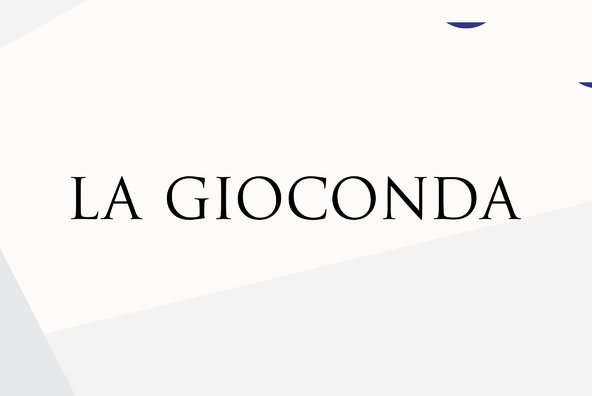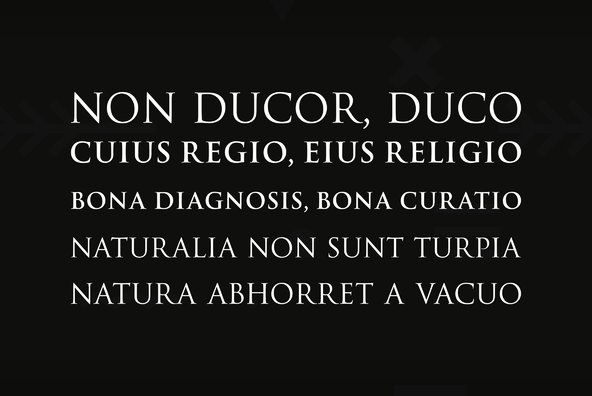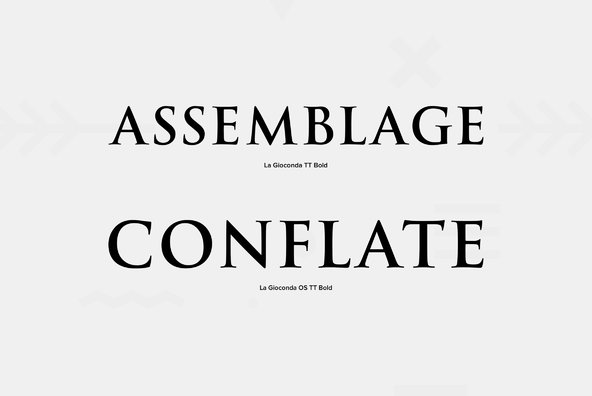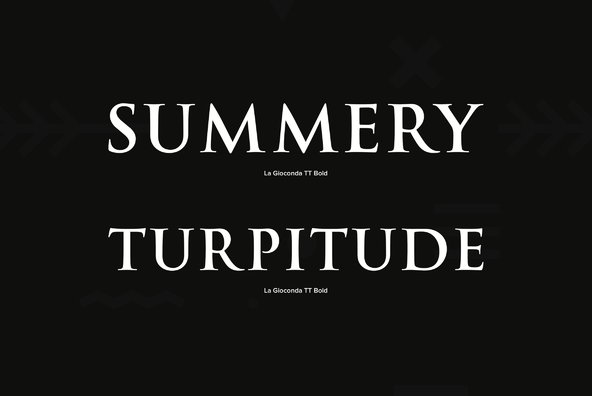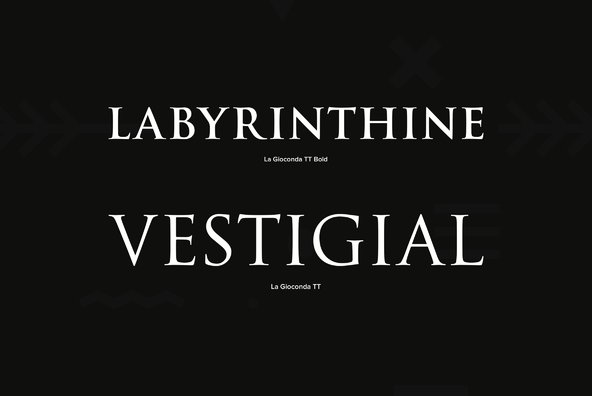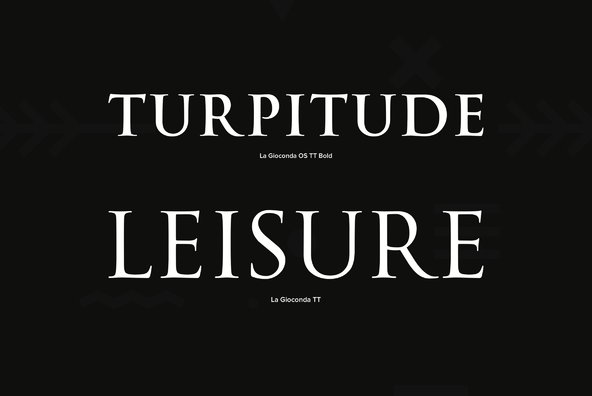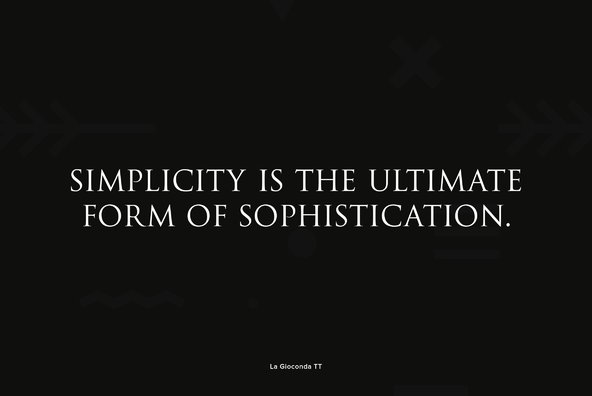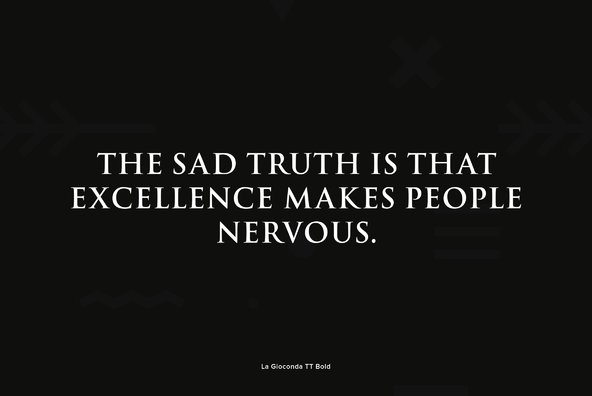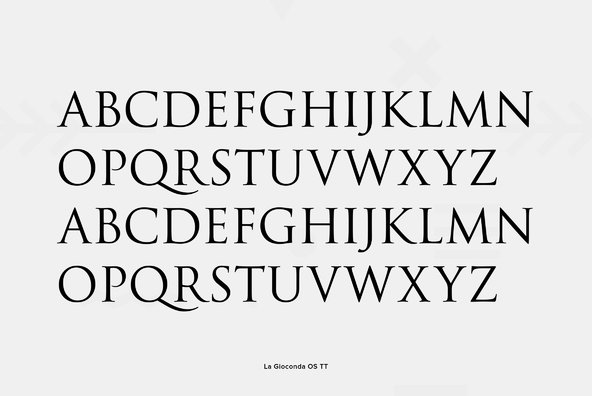
La Gioconda
The style of the Renaissance lettering master Giovanni Francesco Cresci is classical and timeless. Among a number of Italian scribes and lettering instructors of the period, he was the first to combine the elegance and proportions of the Trajan Roman capitals, and interpret a humanistic solution for a lowercase - his 'Lettera antica tonda', as illustrated in two of his work books, 'Essemplare di piv sorti lettere' of 1560, and 'Il perfetto scrittore' of 1570. Cresci's exemplary letterforms were the direct influence for Richard Dawson and Dave Farey in the creation of La Gioconda, a type design which extends the usual Roman capitals with a lowercase, correctly structured small capitals and an additional set of non aligning numerals in two weights, Roman and Bold.